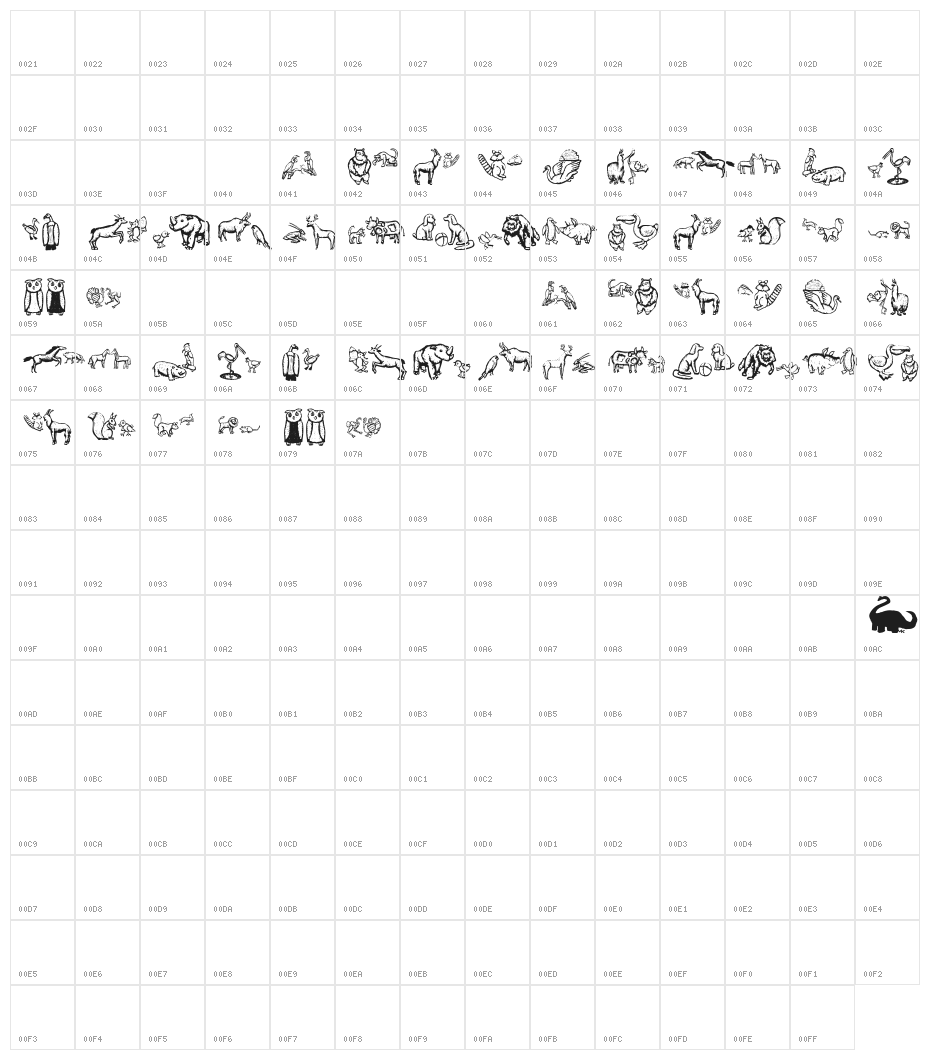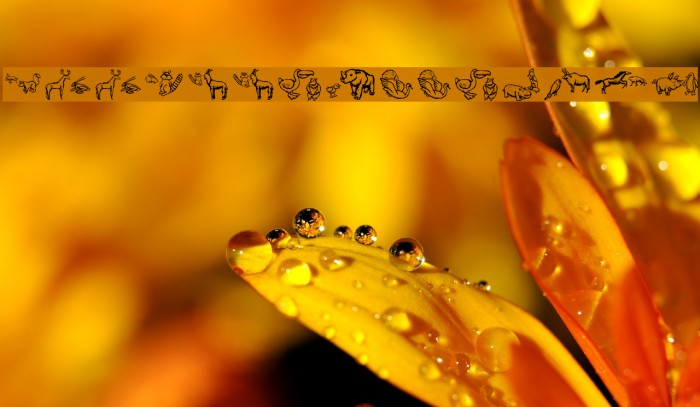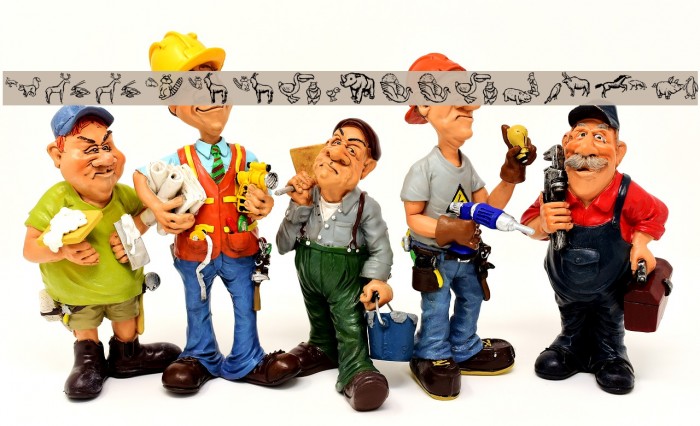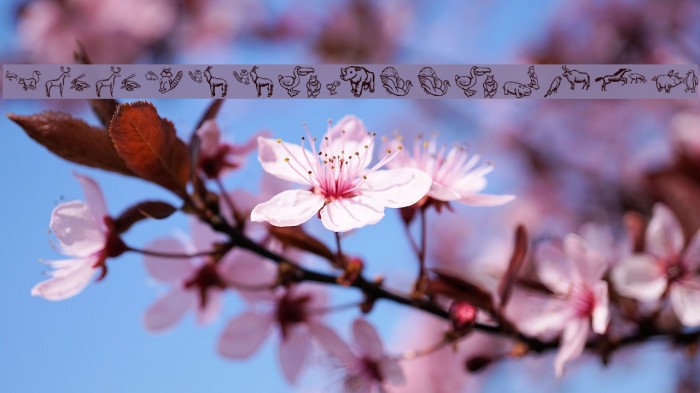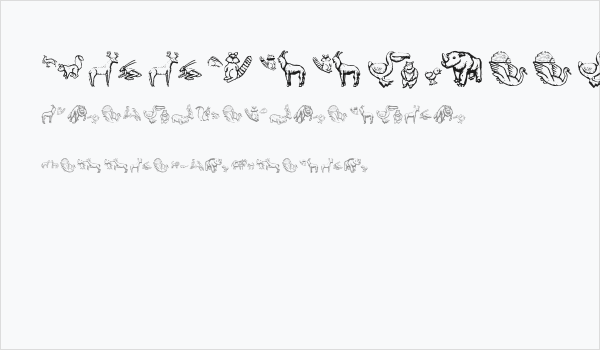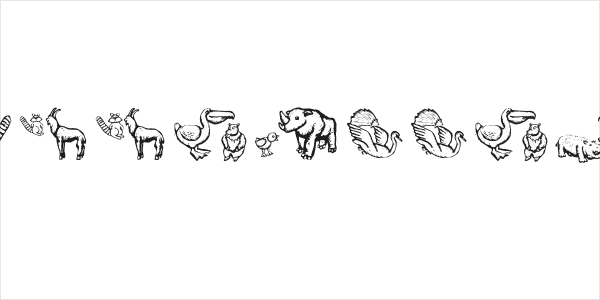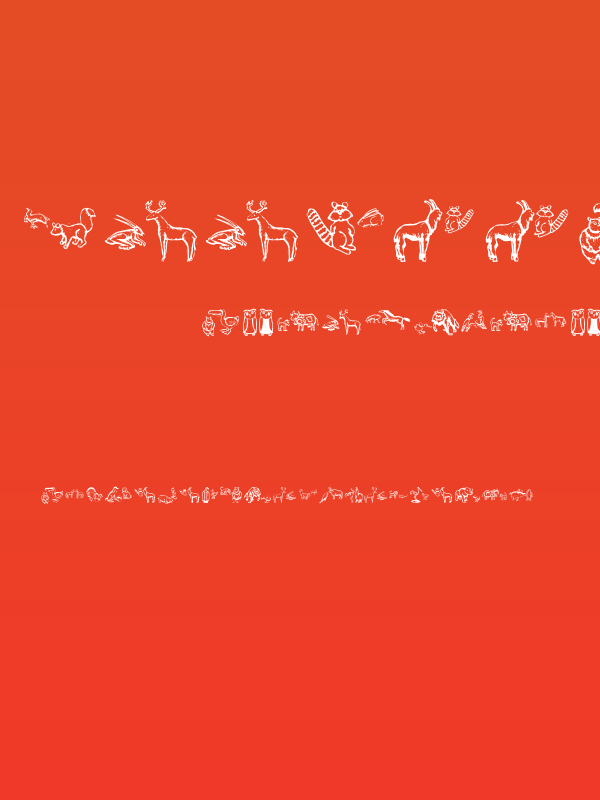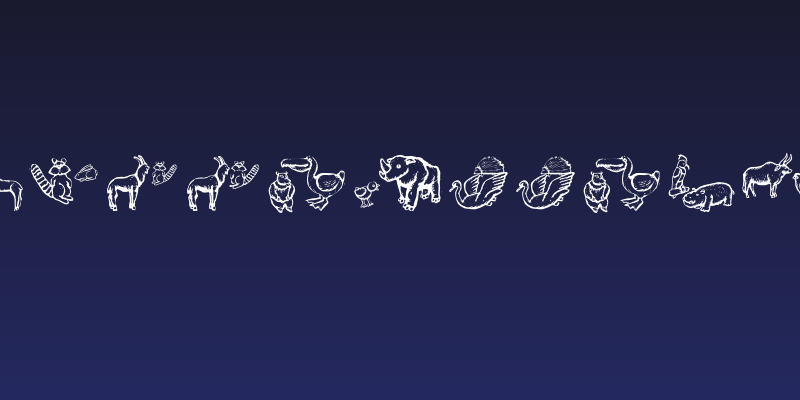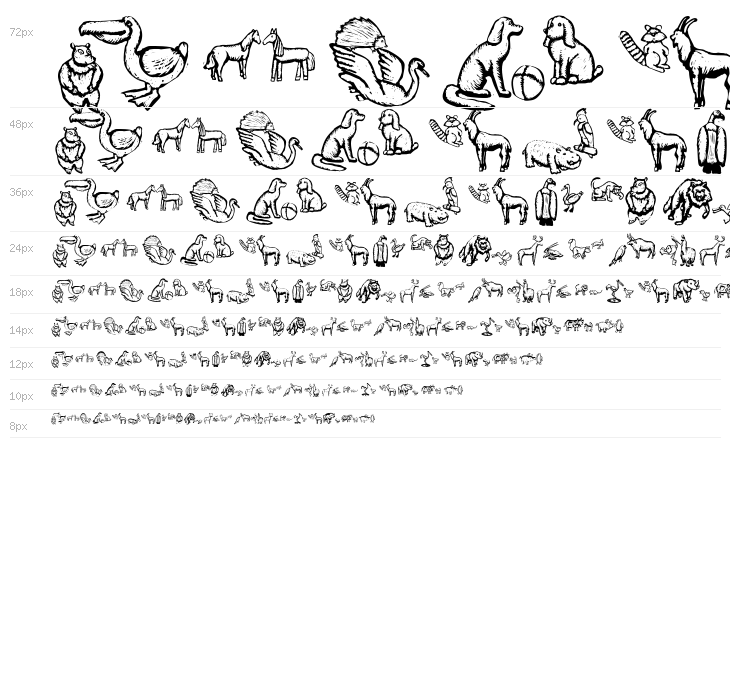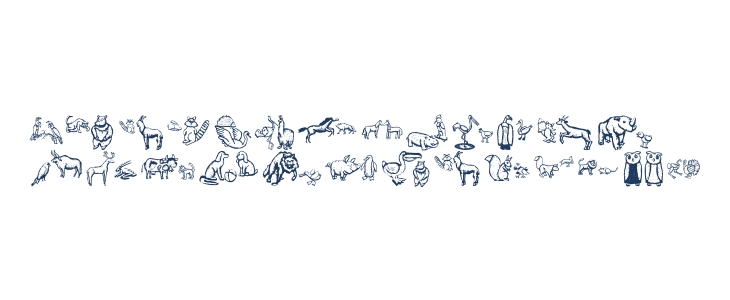
WoodcutMeetings Font
WoodcutMeetings Description
A decorative display font featuring hand-drawn, woodcut-style illustrations of animals and birds for each character, giving a whimsical and vintage appearance. Each glyph is a unique animal or group of animals, rendered in a detailed, sketch-like manner.
| Overall Style | Vintage, Decorative |
| Use Case | Logos, Posters, Headlines, Themed Graphics |
| Proposed Projects | ChildrenΓ’β¬β’s books, educational materials, posters, invitations, themed branding, creative projects. |